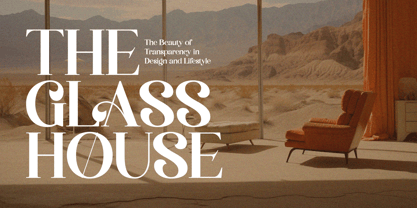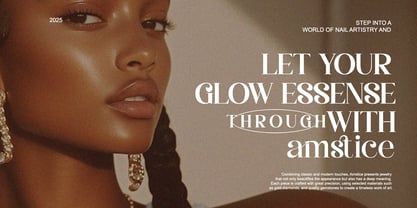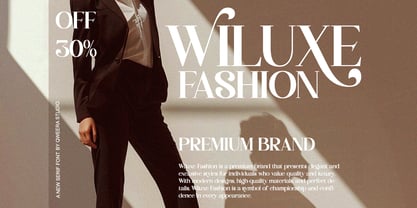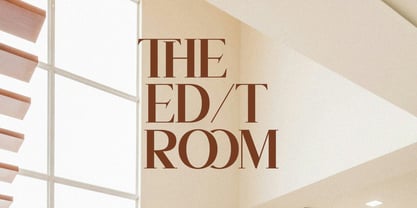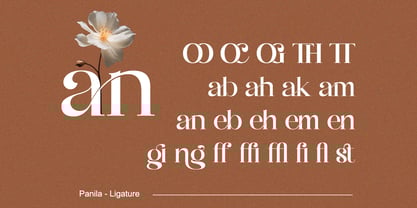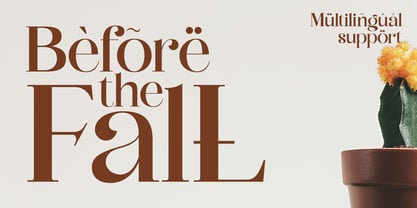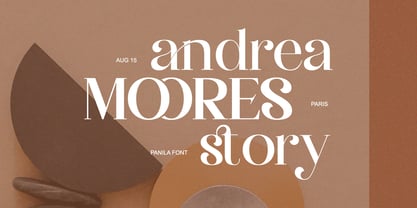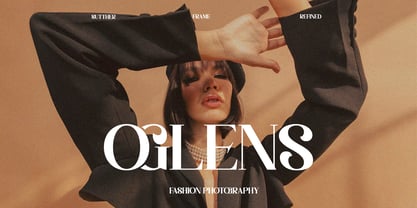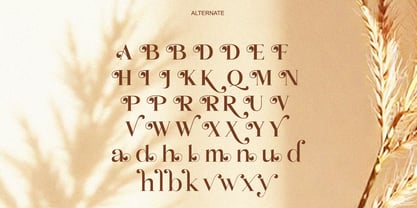
Panila
by Qweera Studio
The Panila Font Family was designed by Idhham Cholid Rikzano Yahya and published by Qweera Studio. Panila contains 2 styles and family package options.
Panila – Modern Luxury Logo Font for Elite Branding
Panila is a sophisticated modern serif font that exudes elegance and exclusivity. Featuring both regular and italic versions with premium alternates and ligatures, this typeface is meticulously crafted for high-end branding, luxury logos, premium packaging, and exclusive poster designs.
Where Contemporary Elegance Meets Timeless Luxury
With its refined letterforms and balanced proportions, Panila delivers unparalleled versatility for luxury branding projects. The carefully designed alternates and ligatures allow you to create distinctive wordmarks that radiate sophistication and class.
Premium Features Include:
Luxury Serif Design - Perfect for premium branding and corporate identity
Dual Style Versions - Regular & italic for elegant typographic combinations
Exclusive Alternates - 25+ special glyphs for unique logo variations
Sophisticated Ligatures - Flawless letter connections for premium typography
Universal Application - From business cards to billboard designs
Extended Language Support - Complete Latin character set plus symbols
Elevate Your Brand with Panila's Luxurious Aesthetic
Ideal for:
• Luxury fashion branding
• High-end product packaging
• Exclusive logo design
• Premium editorial layouts
• Elegant invitation suites